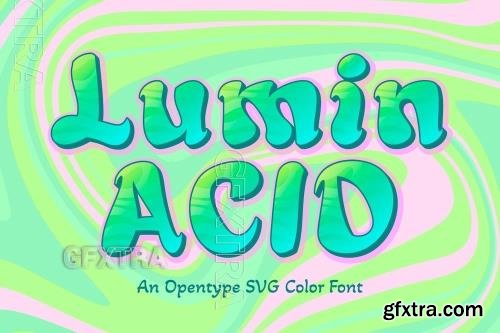
Lumin Acid font
Lumin Acid is a bold, psychedelic font with a graffiti-inspired edge and a dynamic 3D effect. Its dripping, fluid letterforms pulse with urban energy, like neon lights melting into the night. Perfect for street art, rave posters, and rebellious designs, Lumin Acid blends trippy visuals with an underground, city vibe, making every word feel electric and alive.